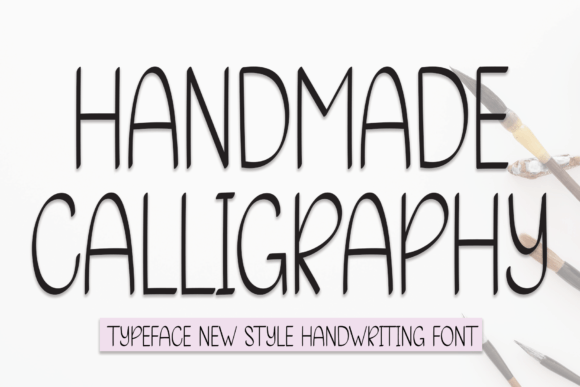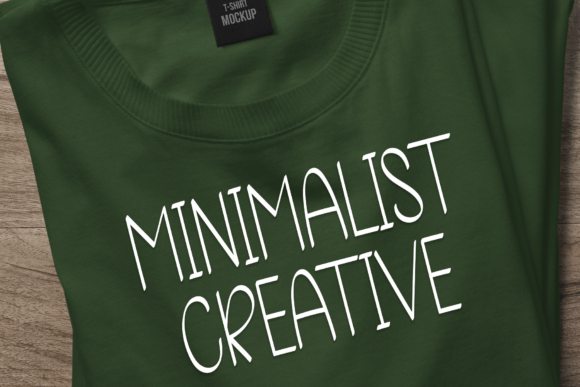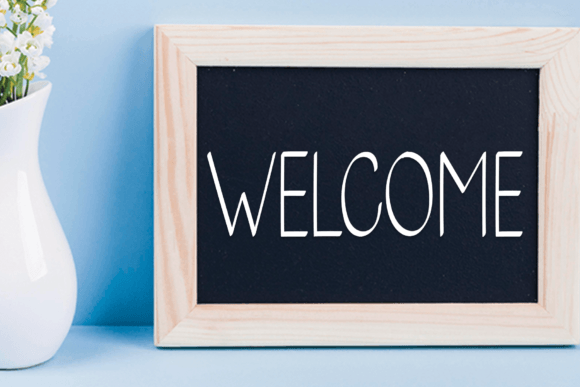
A Cool and Relaxed Handwritten Typeface
Handmade Calligraphy Font is a cool and relaxed handwritten script that brings a natural, neat touch to your design projects. With its versatile style, this font is perfect for a wide range of applications, from greeting cards to headlines, ensuring your designs have a personalized and welcoming feel. Whether you’re creating social media content, invitations, or posters, the Handmade Calligraphy Font adds a fresh, laid-back charm to your projects.
Perfect for Greeting Cards and Invitations
For greeting cards and invitations, the Handmade Calligraphy Font is an ideal choice. Whether you’re designing birthday cards, thank-you notes, or holiday invitations, this font adds a cool and relaxed touch to your designs. Its handwritten style brings a sense of authenticity and warmth, making it perfect for both casual and formal occasions. The Handmade Calligraphy Font ensures your greeting cards and invitations feel both personalized and charming.
Great for Headlines and Promotional Materials
For headlines and promotional materials, the Handmade Calligraphy Font is a fantastic choice. Whether you’re designing posters, flyers, or banners, this font adds a neat and catchy feel to your designs. Its relaxed handwritten style strikes a perfect balance between creativity and readability, making it great for eye-catching headlines. The Handmade Calligraphy Font ensures that your designs stand out with a natural appeal and refined simplicity.
Ideal for Social Media and Digital Content
For social media and digital content, the Handmade Calligraphy Font adds a casual and approachable style to your posts. Whether you’re creating Instagram quotes, Pinterest pins, or Facebook updates, this font ensures your content feels genuine and inviting. The handwritten feel adds a personal touch to social media graphics and content creation, helping your posts stand out while remaining easy to read and engaging.
Great for Product Labels and Packaging
For product labels and packaging, the Handmade Calligraphy Font provides a relaxed, natural vibe to your branding materials. Whether you’re designing product tags, gift packaging, or seasonal items, this font ensures your branding feels approachable and authentic. The Handmade Calligraphy Font is perfect for brands that want to convey a friendly, personalized image while maintaining a neat and professional look.
Versatile, Legible, and Fun
Despite its casual handwritten design, the Handmade Calligraphy Font remains legible and easy to use. Its well-spaced characters and consistent strokes ensure that your text remains clear and readable, even for longer passages or smaller sizes. Whether you’re using it for headlines, captions, or body text, this font strikes the perfect balance between creativity and legibility, making it suitable for a wide range of design applications, from print to digital media.
The Handmade Calligraphy Font is easy to use and integrates smoothly into most design software. Whether you’re working on greeting cards, logos, social media content, or product packaging, this font ensures your designs look polished and professional while maintaining a personalized touch. Its versatility makes it perfect for both print and digital media, giving you the flexibility to use it across various projects with ease.
Add a Neat and Natural Touch to Your Designs with Handmade Calligraphy Font
If you’re looking for a cool handwritten font that adds a relaxed, natural touch to your designs, the Handmade Calligraphy Font is the perfect choice. Whether you’re designing greeting cards, headlines, social media posts, or product packaging, this font will help you create memorable, authentic designs that stand out. Let the Handmade Calligraphy Font bring a personalized, approachable touch to your projects and leave a lasting impression with its cool and natural charm.